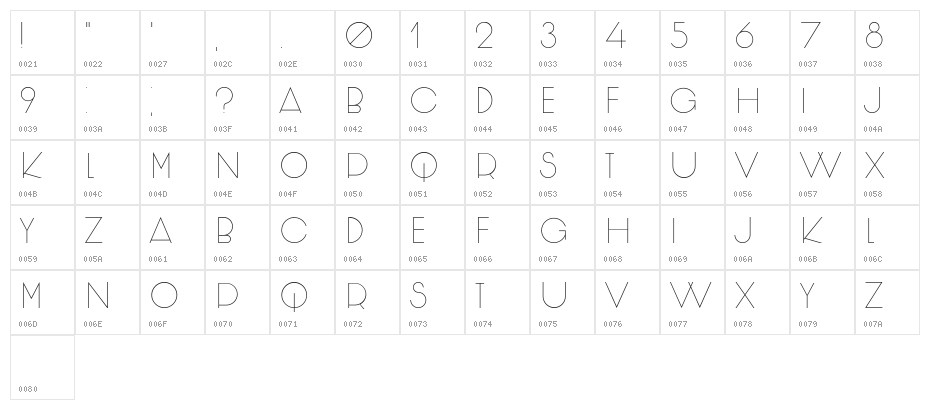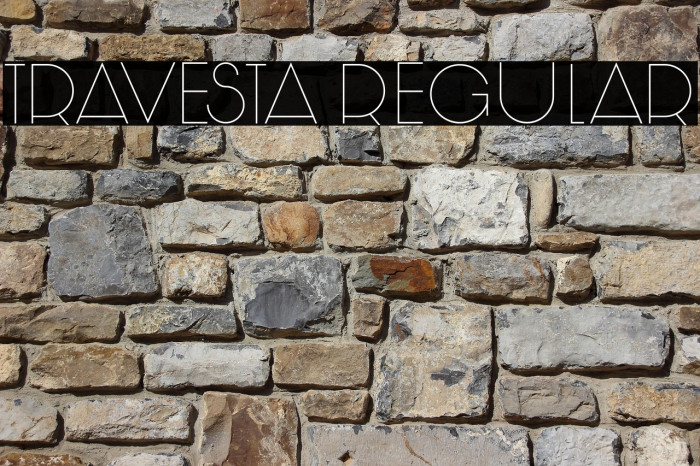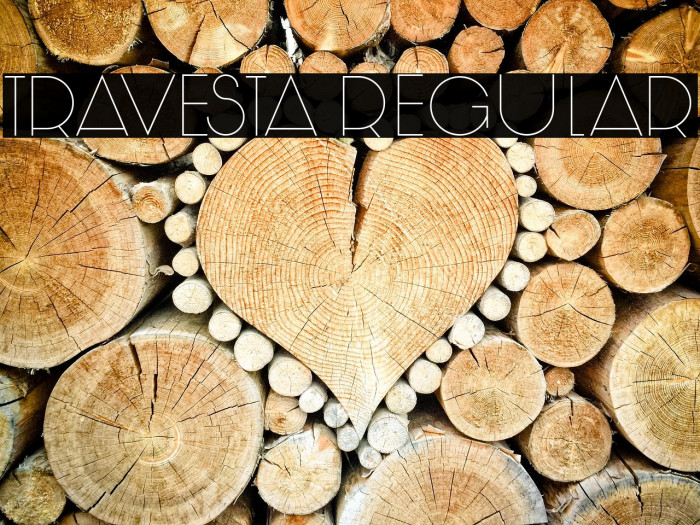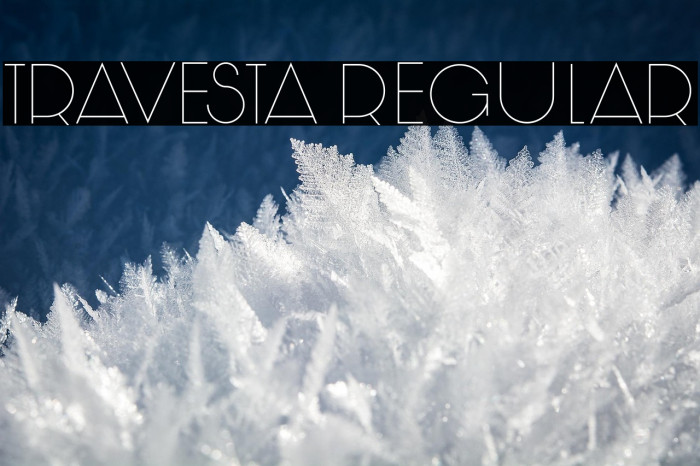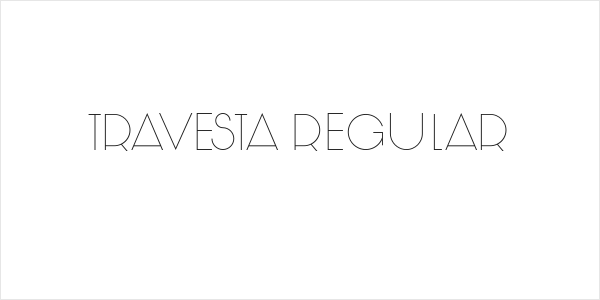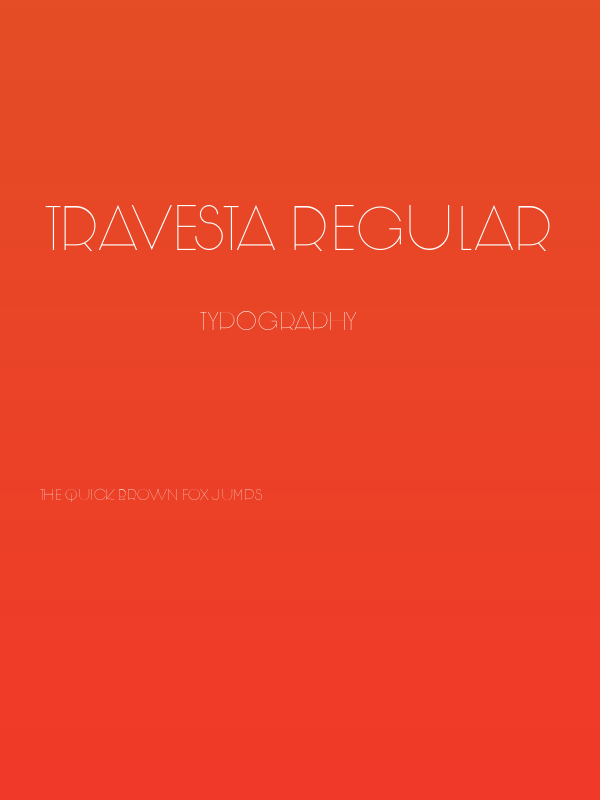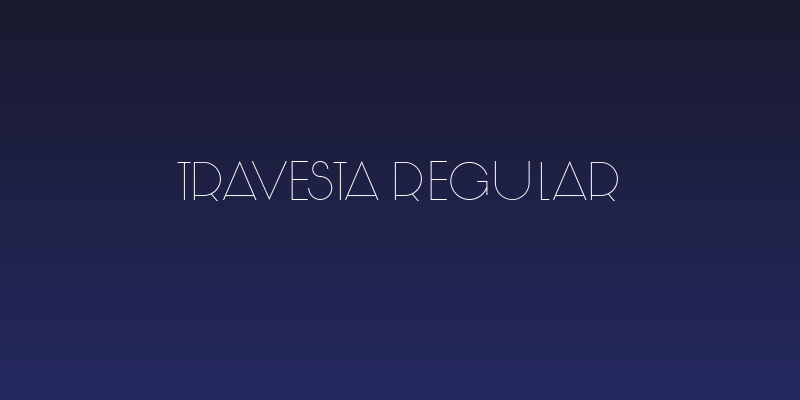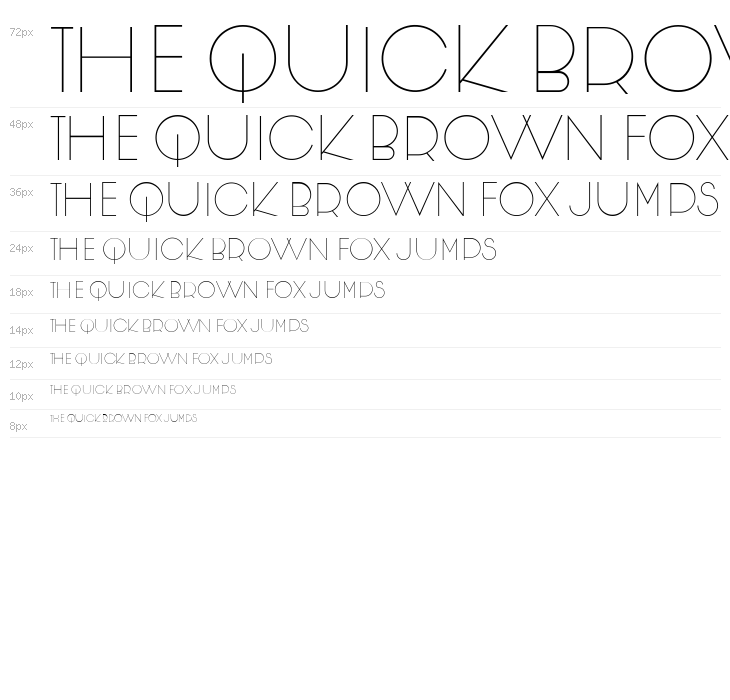
Travesta Regular Font
Travesta Regular Description
This font features a sleek, geometric design with clean lines and a modern aesthetic. The characters are composed of thin strokes, emphasizing a minimalist approach. The uppercase and lowercase letters maintain a consistent style, with a focus on symmetry and balance. The numerals are equally refined, complementing the overall look. Special characters are included, adhering to the same design principles. This font is ideal for projects that require a contemporary and sophisticated touch.